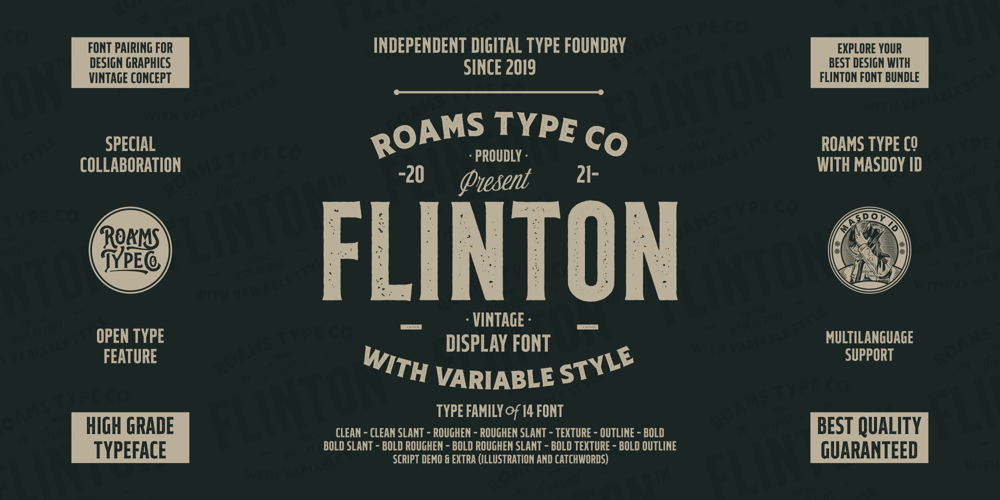
RTCO Flinton
RTCO Flinton font
RTCO Flinton Font Family was designed by Abdul Rochman and published by Roams Type Co. RTCO Flinton contains 14 styles and family package options. Flinton is a basic Vintage Serif Display Font.Flinton Font Family consists of 3 types of letters that have several variants into 14 font style, Include Regular Serif, Bold Serif & Script Demo and Catchwords & Illustrations for extras. This font is suitable for types of designs that have elements of Vintage Concepts, such as logotypes, posters, merchandise designs, etc. And this font has an opentype feature, also supported for several languages,Which consists of several styles: Clean Outline Roughen Texture Slant Script Demo Catchwords what is included in this font are as follows: Opentype Feature Multilanguage Support Numeral Sepparators Math Symbol More 1000 Count Glyphs I hope you enjoy using this Flinton FontThanks For Support